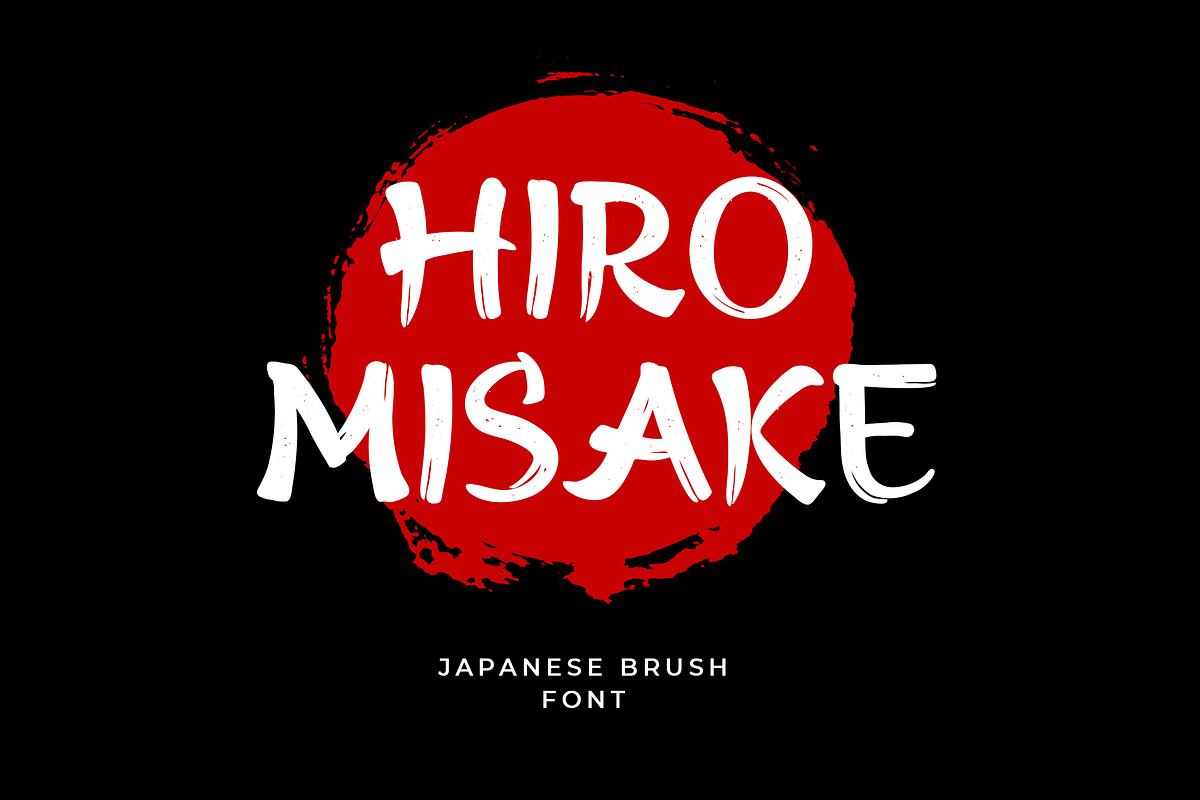
Hiro Misake Brush Japanese Font Free Download is a bold, expressive brush font inspired by traditional Japanese calligraphy. With its hand-drawn strokes and dynamic flow, this typeface brings cultural depth and artistic energy to posters, menus, branding, apparel, and any design needing a strong Asian aesthetic.
Ideal for both creative professionals and hobbyists, Hiro Misake captures the spirit of brush lettering while offering modern versatility. It’s fully compatible with Mac and Windows platforms and supports standard Latin characters and multilingual options, making it a great choice for global designs.